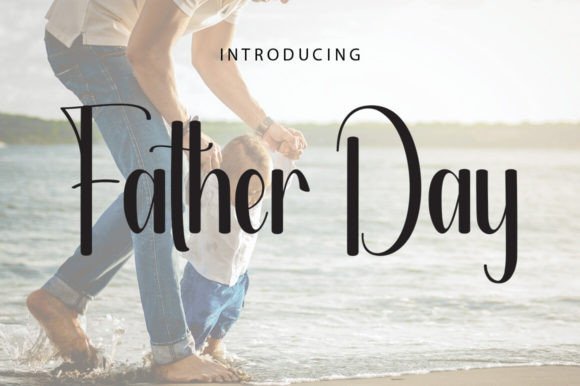
Unlocking the Magic of Father Day Font
As a designer, there’s nothing quite like the rush of creative excitement that comes from finding the perfect font to bring your vision to life. It’s that moment when all the pieces fall into place, and your design concept transforms into a stunning reality. For many of us, that ‘aha’ moment is just a font away – and for those who’ve been searching, we’re thrilled to introduce the ‘Father Day’ font.
This exquisite, handwritten font is more than just a typeface – it’s a key to unlocking the magic in your designs. With its cursive elegance and tender touch, the ‘Father Day’ font adds a timeless romantic charm to any project. Whether you’re creating a wedding invitation, a birthday card, or a heartfelt message, this font is sure to capture the essence of your emotions and leave a lasting impression.
As a valuable addition to any designer’s toolkit, the ‘Father Day’ font offers endless possibilities for creativity and self-expression. Its unique character and charm make it a must-have for anyone looking to add a touch of elegance and sophistication to their designs.
Father’s Day Font Key Features
- Font Family: Father’s Day Font is a unique, custom-designed font family that includes uppercase and lowercase letters, numerals, and punctuation marks.
- Character Set: The font family includes a wide range of characters, including Latin, Cyrillic, and Greek alphabets, making it suitable for various languages.
- Unique Characteristics: The Father’s Day Font features a distinctive, hand-drawn style with bold lines, rounded edges, and a warm, nostalgic feel, making it perfect for creating personalized and emotional designs.
Designer Review: Father Day Font
Overall, I think the Father Day Font has some nice qualities that make it a decent choice for a special occasion, but it’s not without its limitations.
- The font’s playful and cursive style makes it perfect for adding a touch of whimsy to Father’s Day cards, gifts, or social media posts.
- The font’s high contrast between the thick and thin lines adds a sense of texture and depth, making it visually appealing.
- The font’s versatility allows it to work well in both digital and print media.
- The font’s lack of legibility in smaller font sizes can make it difficult to read, especially for older adults or those with vision impairments.
- The font’s overuse of swashes and flourishes can make it look cluttered or overly decorative, detracting from the message.
- The font’s limited character set can make it difficult to use for longer blocks of text.
In conclusion, the Father Day Font is a good choice for a special occasion, but it’s essential to use it judiciously and consider the potential limitations. With proper use, it can add a nice touch of personality to your design, but be mindful of its potential drawbacks.
The Father Day Font is commonly used in the following designs:
- Greeting cards and invitations.
- Social media posts and ads.
- Printed materials, such as flyers and brochures.